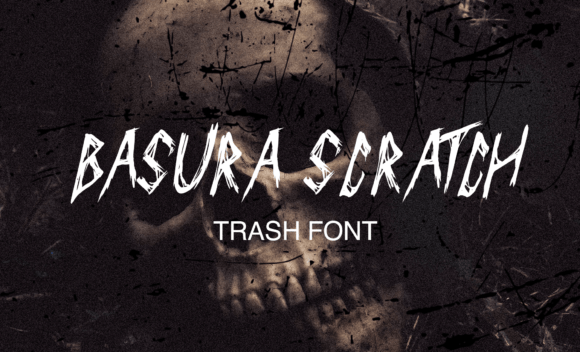
Unleash the Chilling Essence of Basura, the Ultimate Horror-Trash Display Font!
In the realm of darkness and death metal, where shadows dance and fear reigns supreme, there exists a font that embodies the very essence of horror – Basura. This spine-tingling display font is not for the faint of heart; it's a typographic masterpiece that commands attention, leaving an indelible mark on the minds of those who dare to gaze upon it.
With its jagged edges and menacing curves, Basura is a font that speaks of unspeakable horrors, crafting an atmosphere of pure dread. Its sharp angles pierce through the digital veil, evoking a sense of unease that lingers long after the page is closed. Whether you're conjuring up chilling movie titles, designing haunting posters, or crafting album covers that send shivers down the spine, Basura is your ultimate weapon of choice.
Step into the macabre world of Basura, where nightmares take form and darkness prevails. Let your imagination run wild as you craft designs that are both captivating and terrifying. From eerie quotes that crawl across the screen to bone-chilling headlines that demand attention, Basura is the font that will elevate your designs to the realm of the extraordinary.
Immerse yourself in the twisted beauty of Basura, a font that captures the essence of the macabre. With its dark and twisted style, Basura is the perfect choice for those who revel in the shadows, embracing the dark side of creativity. Unleash your inner demons and let Basura guide you on a journey through the depths of darkness.